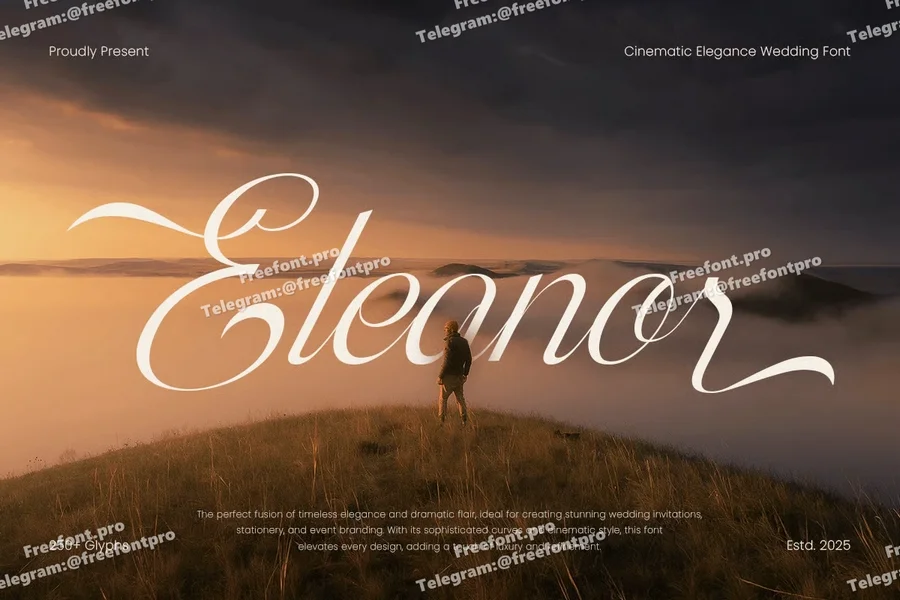
Elanor – Cinematic Elegance Wedding Font
ELANOR is a cinematic elegance wedding script font designed to evoke timeless beauty and sophistication. Perfect for luxury weddings, high-end invitations, and romantic branding, ELANOR combines graceful curves with delicate calligraphy to create a refined, elegant aesthetic that adds a touch of class to any project.
Whether you’re designing wedding invitations, save-the-dates, or elegant logos, ELANOR provides the perfect balance of romantic style and professional polish. Inspired by classic cinematic elegance, this font will ensure your special event or brand leaves a lasting impression.
ELANOR – Cinematic Elegance Wedding Script Font Features
Elegant script letterforms with a cinematic flair
Ideal for wedding invitations, logos, and high-end branding
Includes uppercase, lowercase, numerals, and punctuation
Graceful, romantic design with professional sophistication
OpenType features for advanced typographic styling